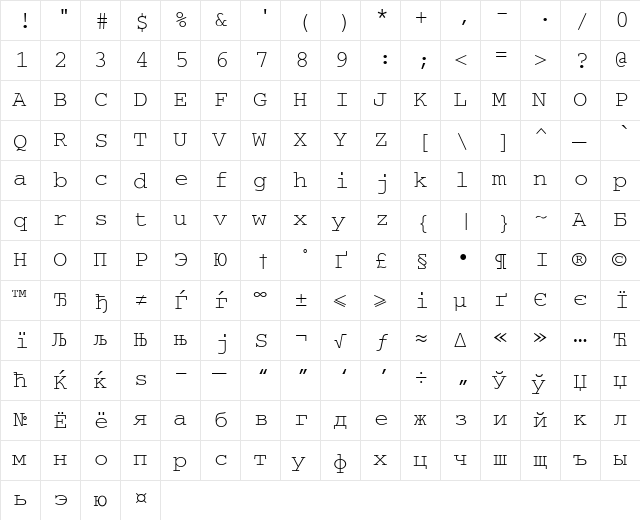
CourierMACCTT Regular
Design Context for CourierMACCTT Typeface
CourierMACCTT uses fixed-width spacing throughout, giving it the structured, systematic character associated with coding environments and technical documentation.
A natural fit for code editors, technical documentation, developer-focused branding, and terminal-inspired UI.
Pro Tip: Pair CourierMACCTT with a proportional sans for UI contexts where code-style labels and regular body copy need to coexist.